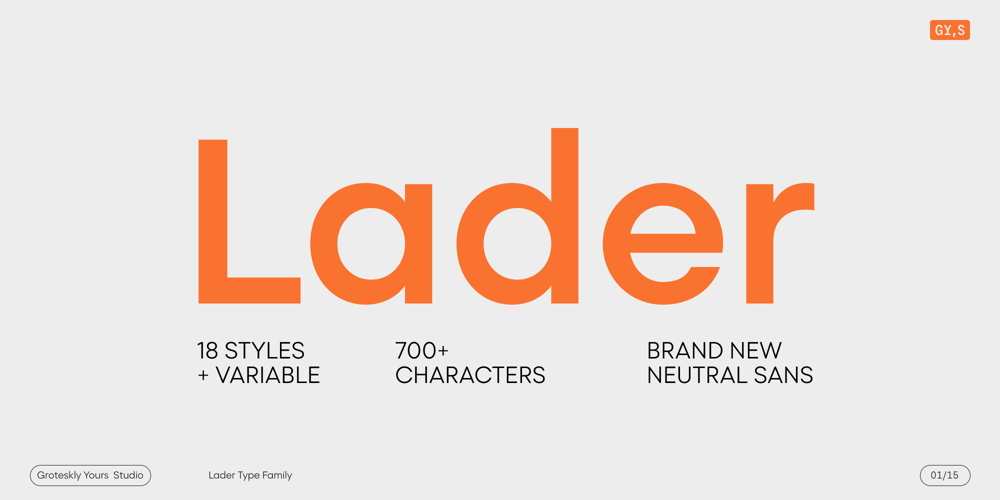
Lader
Lader font
Lader Font Family was designed by Eugene Tantsurin and published by Groteskly Yours. Lader contains 19 styles and family package options. Lader: A Brand New Neutral Sans Serif Typeface- 18 Fonts + 1 Variable Font – Extended Latin Support- 15+ OpenType Features- Stylistic Alternates & Ligatures- Free Trials AvailableLader is a geometric sans-serif type family consisting of 19 styles, ranging from Thin to Black, with matching italics. Inspired by the aesthetics of minimalism, Lader features round and legible letterforms, a wide range of styles, and support for 150+ languages.Lader was designed to be a perfect workhorse typeface for designers working in various fields, such as web design, UI/UX, editorial design and branding. In Lader, the neutrality of a geometric sans is coupled with friendlier elements, resulting in a typeface that is relaxed, approachable, and versatile.Lader includes essential OpenType features, such as Stylistic Alternates and Ligatures, as well as more sophisticated features like Fractions, Sub- and Superscripts, along with many others.For more information or free trials, reach out to us at contact@groteskly.xyz